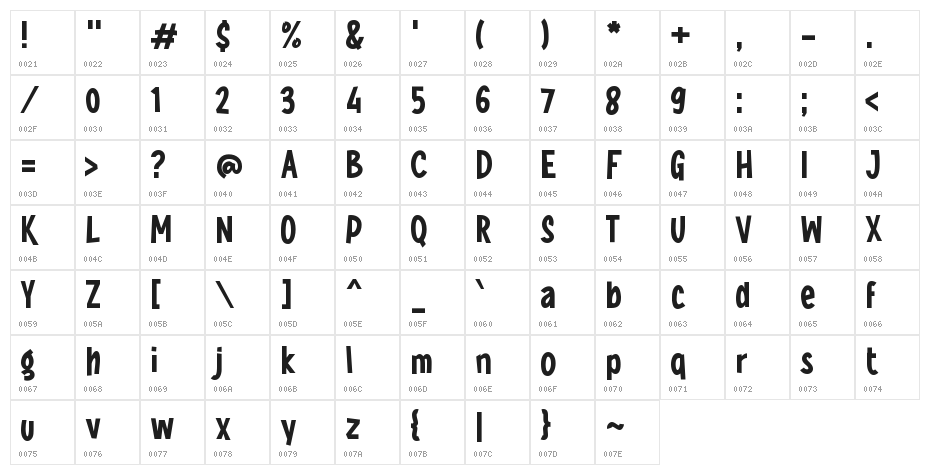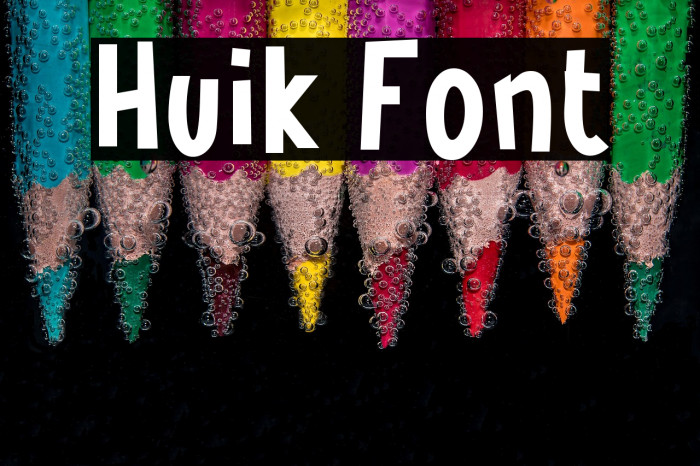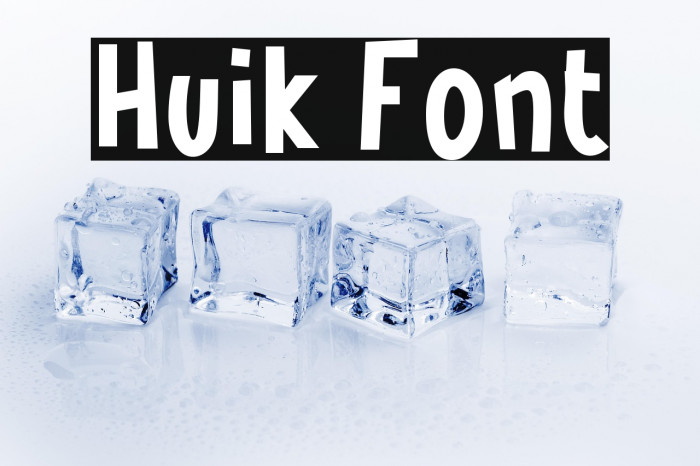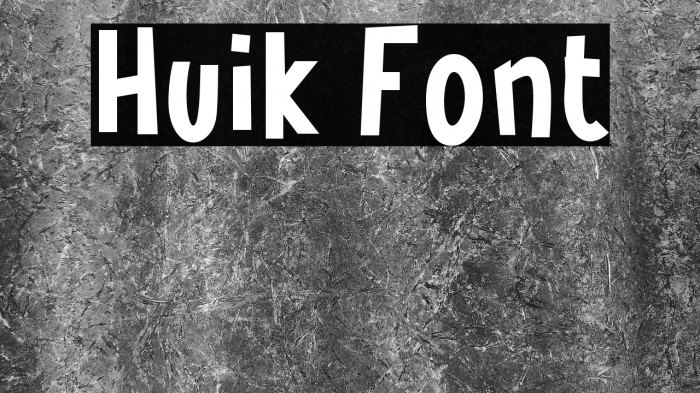
Huik Font
Huik Description
This font features a playful and bold design with slightly irregular shapes, giving it a hand-drawn appearance. The uppercase letters are tall and narrow, while the lowercase letters maintain a consistent height, contributing to a cohesive look. The numbers are bold and easily readable, matching the style of the alphabet. Special characters are included, maintaining the same whimsical style. The overall impression is casual and friendly, making it suitable for informal and creative projects.
| Overall Style | Playful, Casual, Hand-drawn |
| Proposed Projects | Ideal for children's books, playful branding, posters, and creative invitations. |